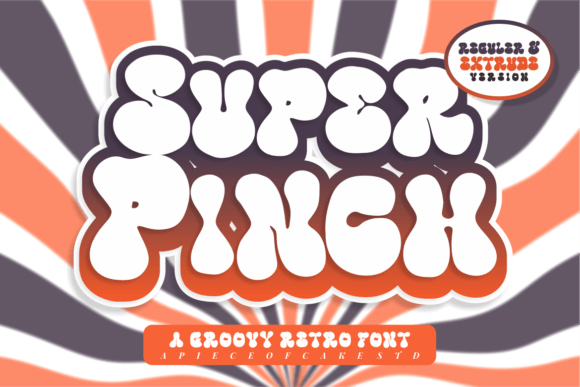
Embark on a captivating typographical journey with Super Pinch Font, a remarkable display font family crafted to ignite your creativity and leave an unforgettable mark on your designs.
Indulge in the charm of this retro-inspired font, a testament to the enduring allure of classic aesthetics. Its playful curves and distinctive letterforms exude a timeless elegance that effortlessly elevates any project it graces.
With its versatility, Super Pinch Font effortlessly adapts to a multitude of applications, from eye-catching headlines that command attention to heartfelt greeting cards that convey your warmest sentiments. Its diverse range of weights and styles ensures seamless integration into any design concept, allowing you to effortlessly create designs that resonate with your audience.
Unleash your creativity and explore the boundless possibilities of Super Pinch Font. Let your imagination soar as you craft stunning quote posters that capture the essence of your thoughts and aspirations. Design invitations that exude elegance and sophistication, leaving a lasting impression on your guests. Create logos and branding that exude personality and professionalism, setting your business apart from the competition.
With Super Pinch Font, the possibilities are as limitless as your imagination. Embrace the power of typography and transform your creative visions into tangible masterpieces. Elevate your designs to new heights and captivate your audience with the timeless beauty of Super Pinch Font.